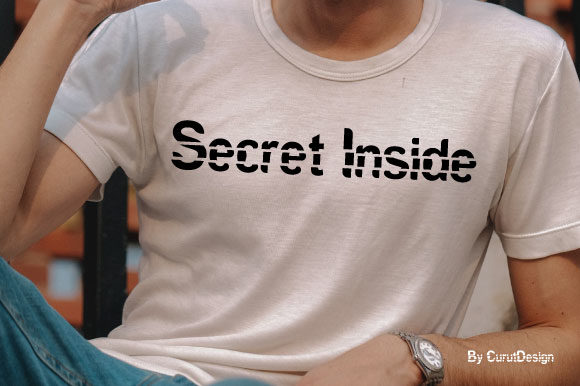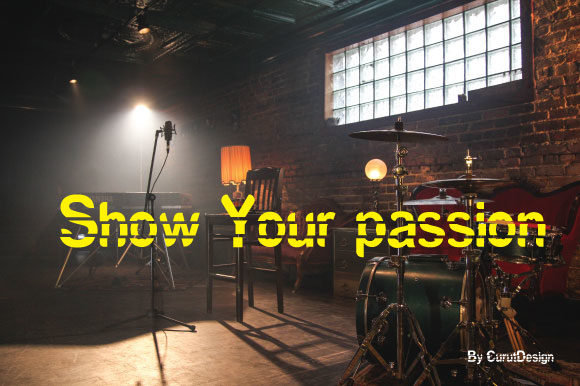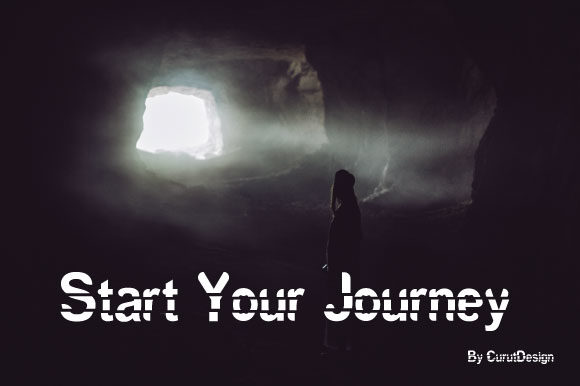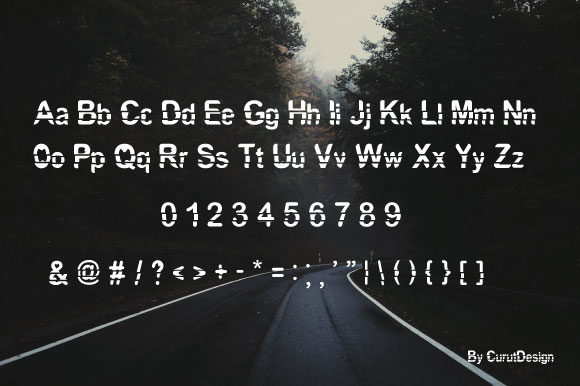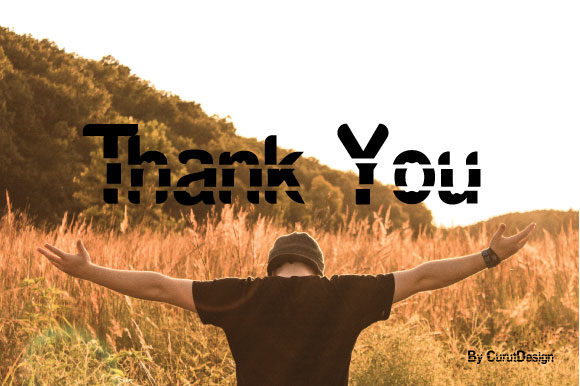
Introduction to Kasumba Font
Have you ever stared at a blank canvas, eager to bring your creative project to life, only to be stuck on the perfect font to match your vision? I’ve been there, and I’m sure many designers can relate. But what if you stumbled upon a font that not only sparks inspiration but also elevates your design to the next level?
Meet Kasumba Font, a high-quality display font that’s sure to turn heads. With its bold and playful vibe, this font is a design resource that’s perfect for adding a touch of fun and personality to any creative project. Whether you’re working on a graphic design, a logo, or a social media graphic, Kasumba Font is sure to bring your design to life.
Kasumba Font
- Includes 6 fonts with varying styles and weights, perfect for creating visually appealing typography
- Supports a wide range of languages, including Latin, Cyrillic, and Greek alphabets
Honest Review: Kasumba Font
I recently had the chance to work with the Kasumba Font in a creative project and I must say, it’s a great addition to any design resource collection. The font’s high quality and unique style make it an excellent choice for designers looking to add a touch of elegance to their work.
- What works well: ✨ The font’s transparent background makes it easy to combine with other design elements and ✨ its versatility in both digital and print formats is impressive.
- What doesn’t: ⚠️ The font’s limited character set may be a concern for designers working on projects that require a wide range of special characters and ⚠️ the lack of bold weight options may limit its use in certain design scenarios.
Tips for Getting the Most Out of Kasumba Font
For the best results, use Kasumba Font on a high-quality design resource, such as a transparent background. This will allow the font to shine and add a touch of elegance to your creative project. You can also experiment with different font sizes and colors to create a unique look.
Kasumba Font is perfect for a variety of creative projects, including logos, social media graphics, and presentations. Its high-quality design makes it an ideal choice for business and professional applications. You can also use it for personal projects, such as blog posts, resumes, and invitations.